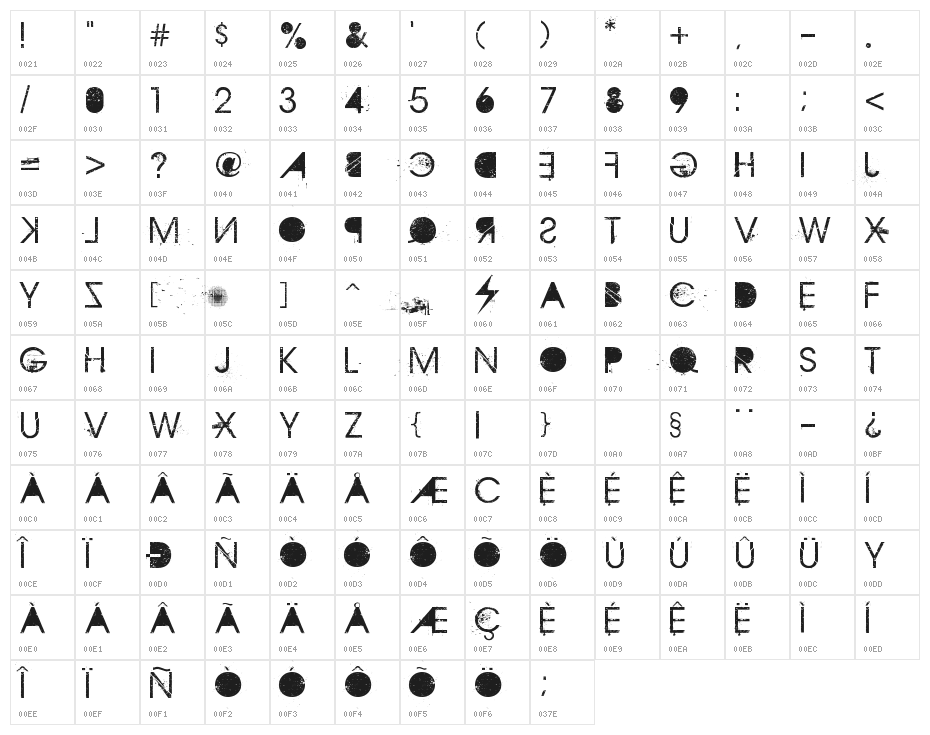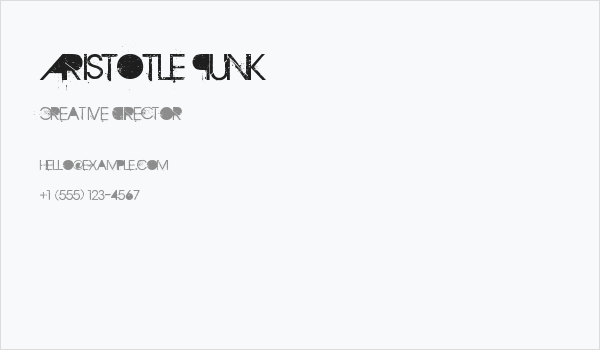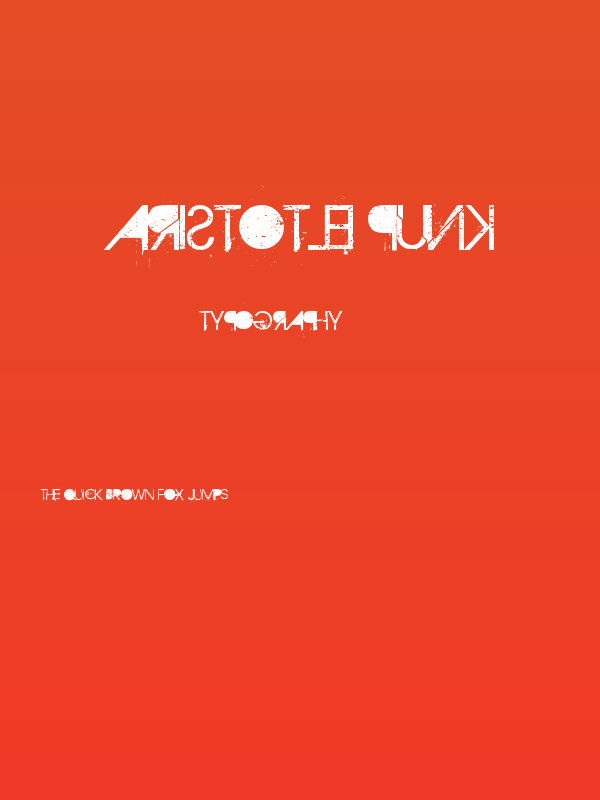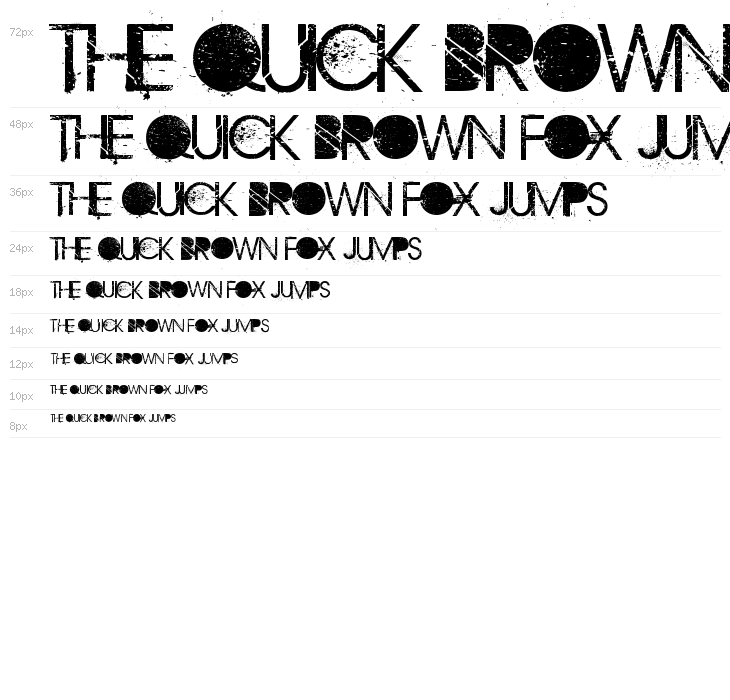
Aristotle Punk Font
Aristotle Punk Description
This font features a bold, distressed style with a grunge aesthetic. The characters are heavily textured, giving them a worn and rugged appearance. Each letter and number is uniquely designed with varying levels of distress, creating an edgy and rebellious look. The uppercase and lowercase letters maintain a consistent style, while the numbers and special characters complement the overall theme. This font's distinctive appearance makes it ideal for projects that require a bold statement or an alternative, punk-inspired vibe.
| Overall Style | Grunge, Punk, Distressed |
| Use Case | Headlines, Posters, Branding |
| Proposed Projects | Ideal for album covers, posters, streetwear branding, and edgy graphic designs. |